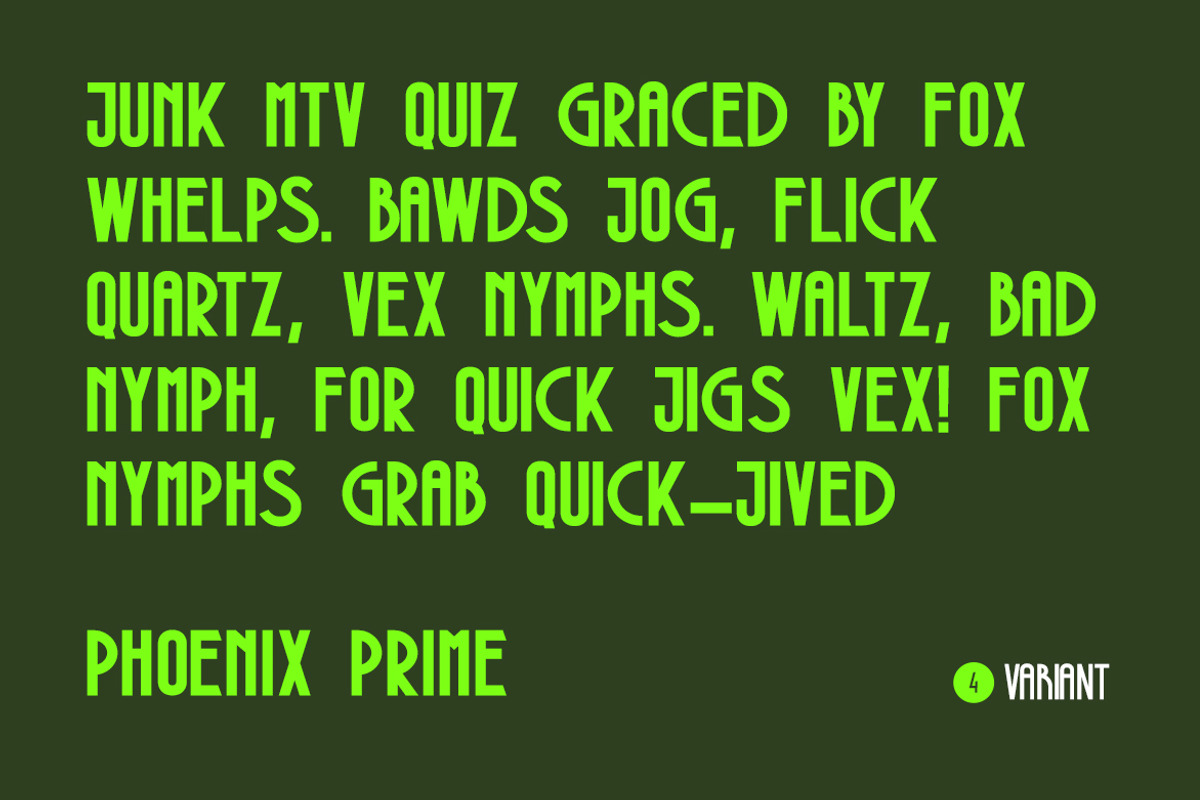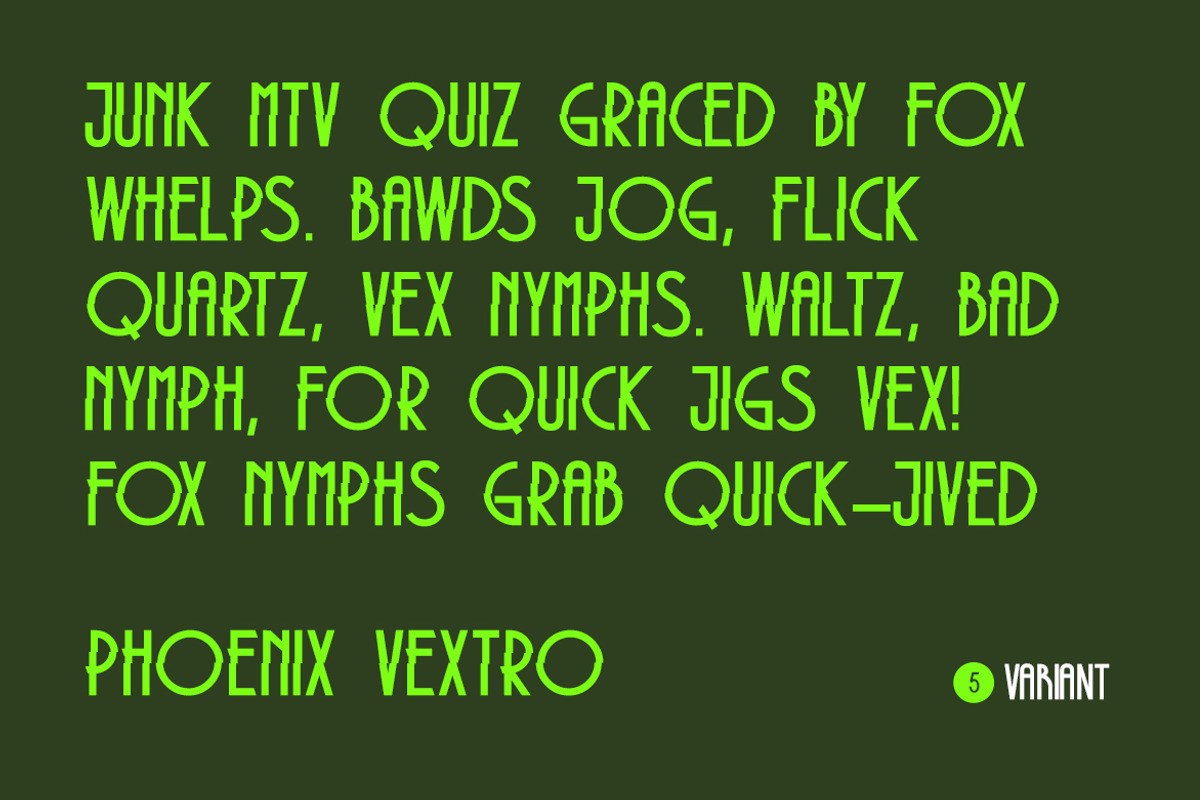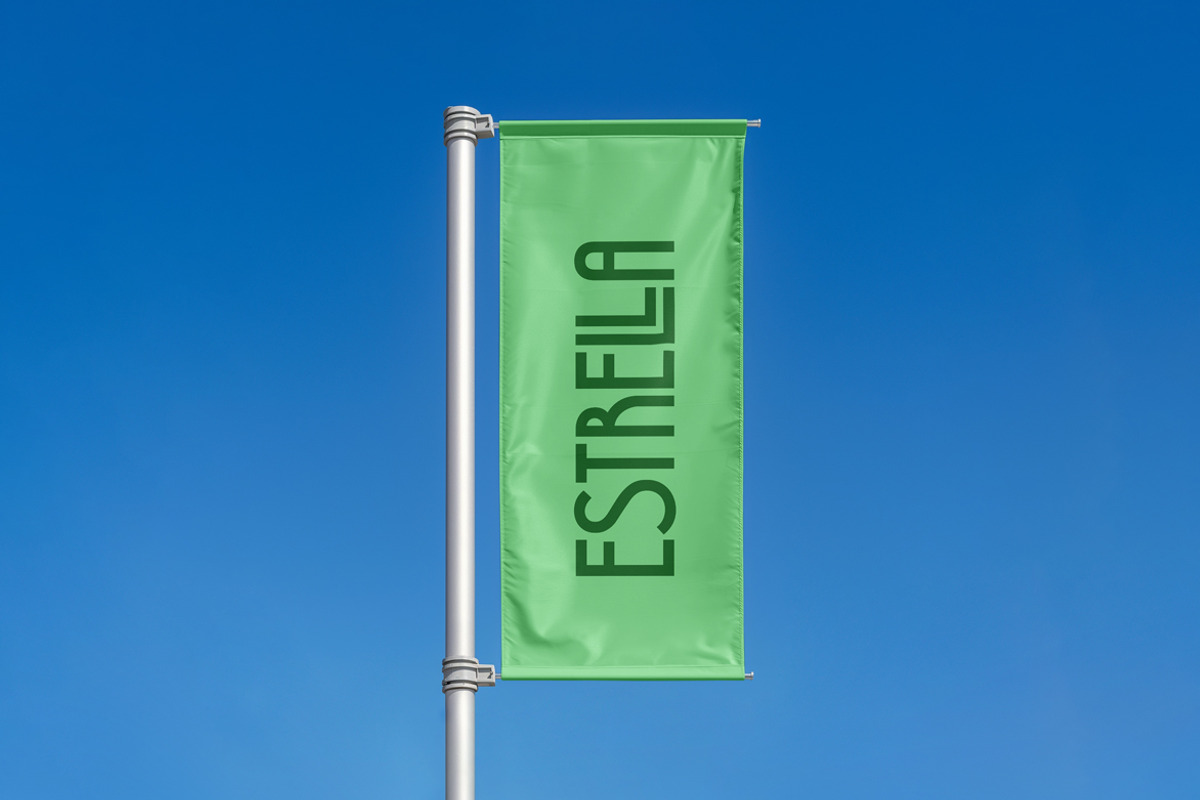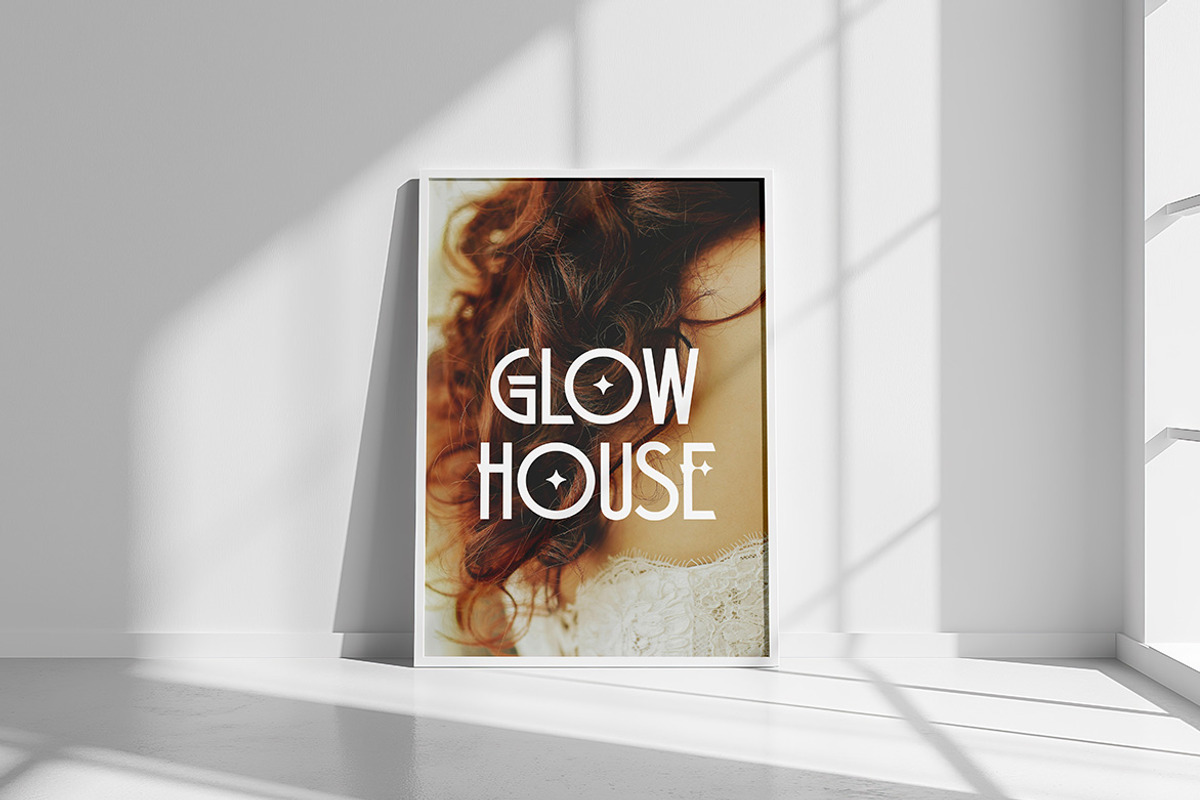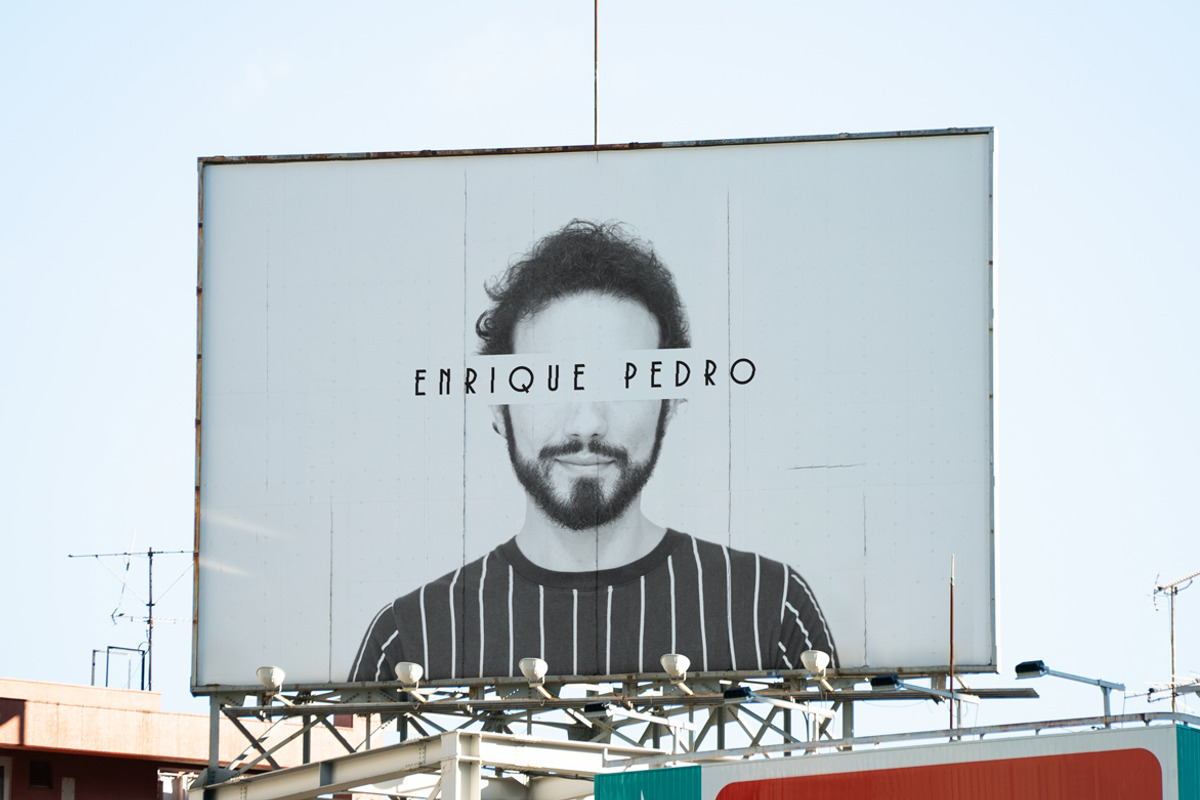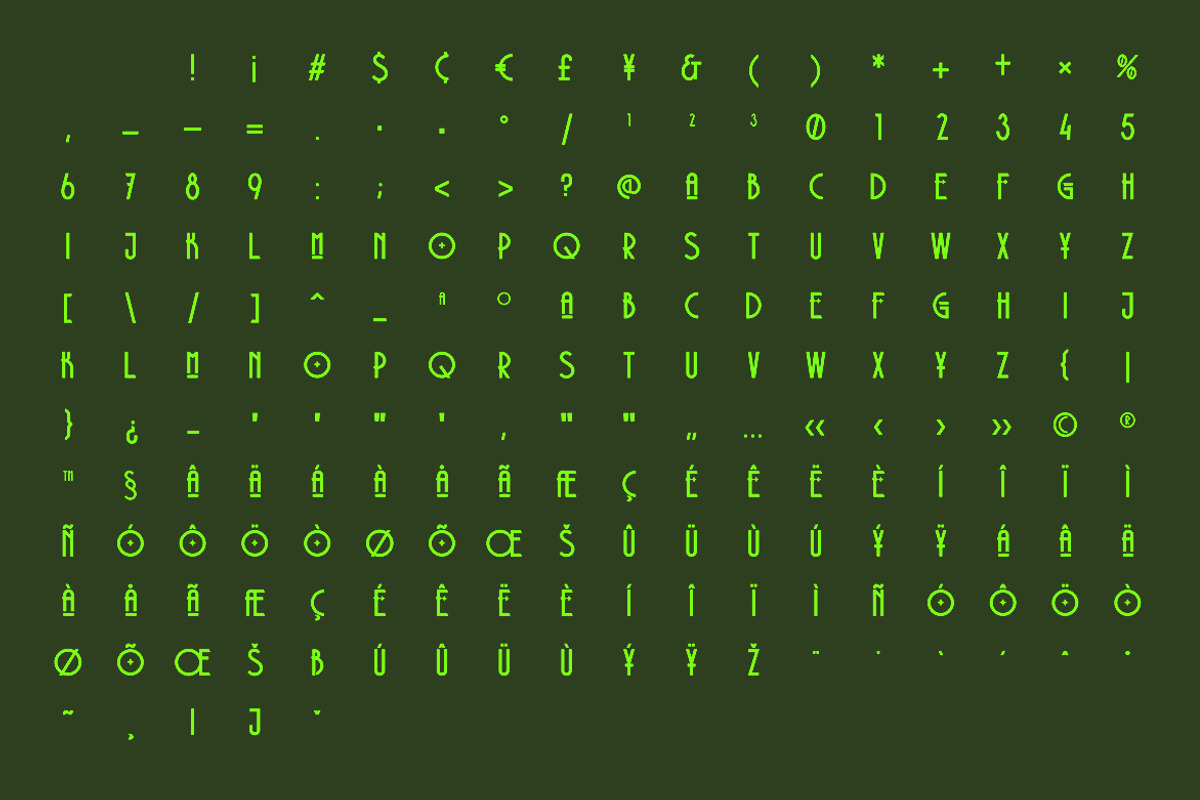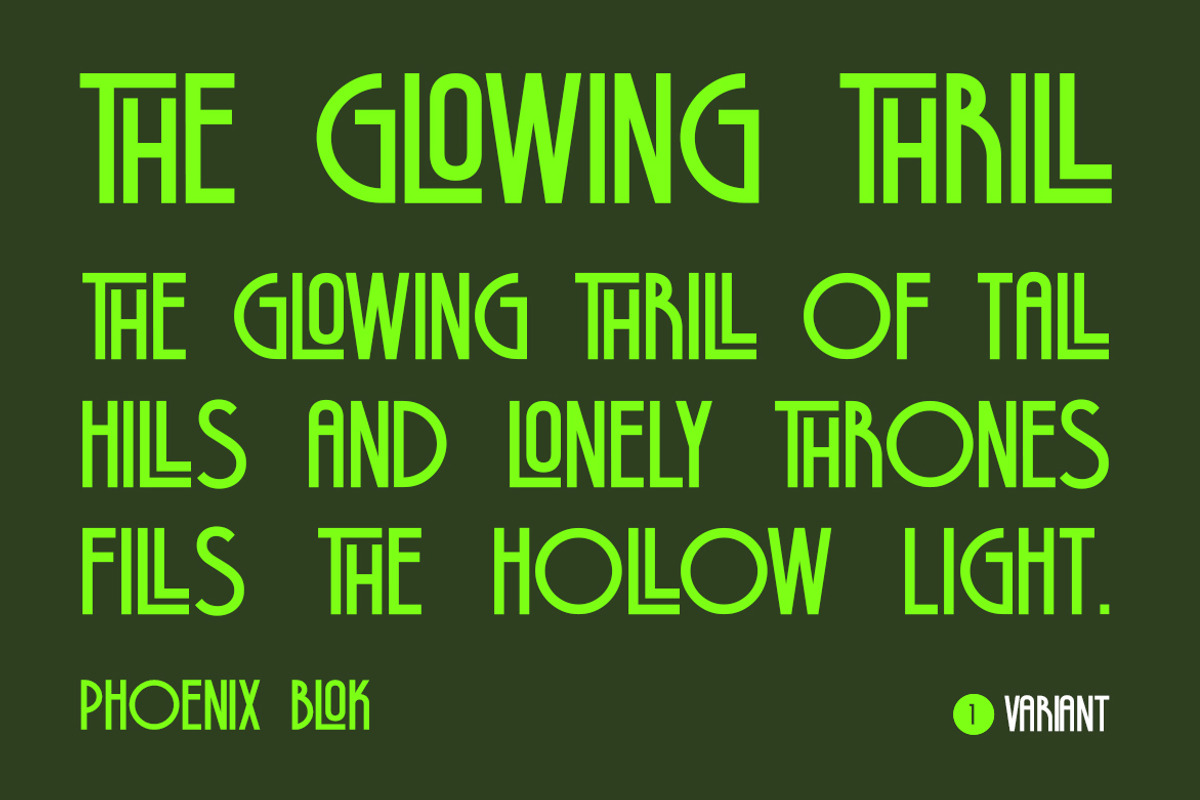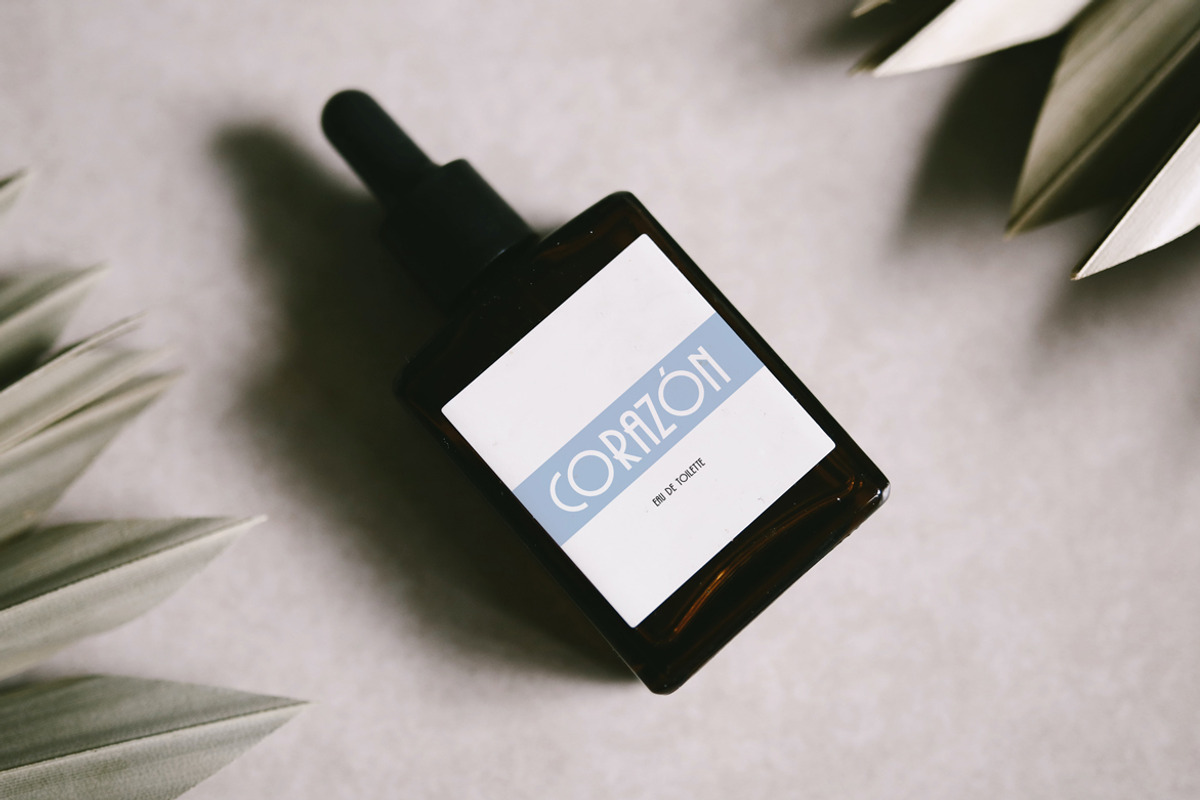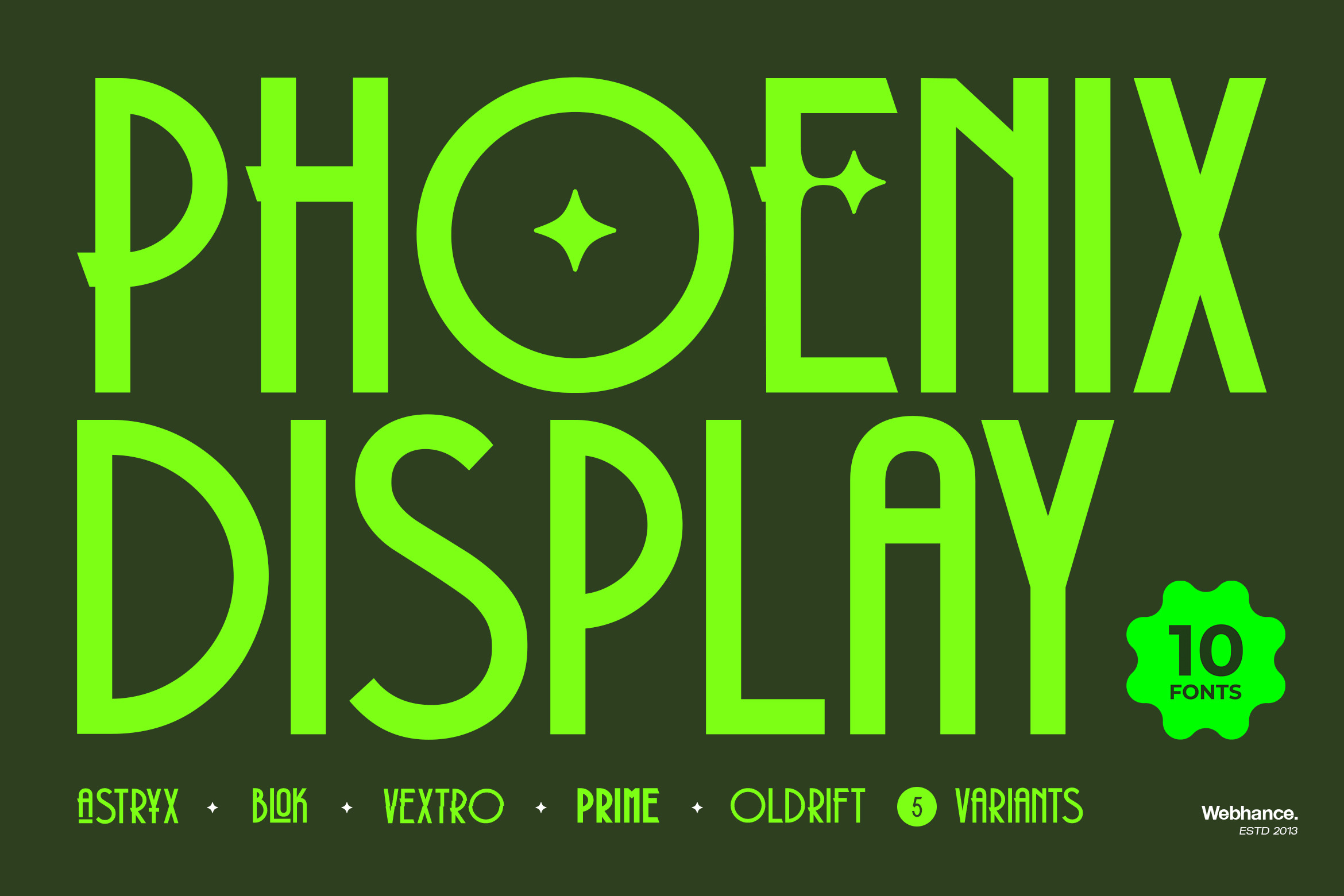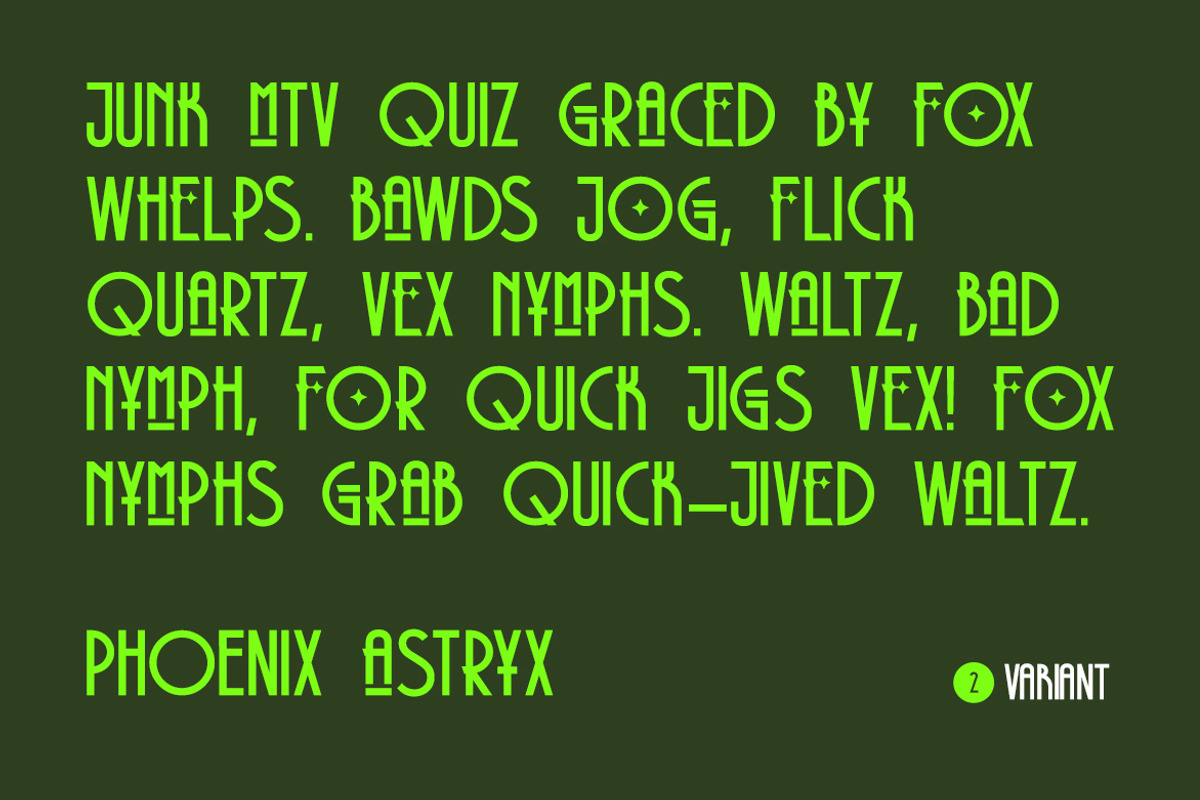
Phoenix Display Font
Phoenix Display Font – Evergreen Typeface
Phoenix Display Font Display is your ultimate choice when boldness and futuristic flair are essential. Designed with cosmic inspiration and modern geometry, Phoenix Display Font Display blends clean cuts, perfect circles, and stellar details to create a mesmerizing visual style. Whether you need sleek minimalism or rugged vintage charm, this font family offers five exciting variants — Astryx, Blok, Vextro, Prime, and Oldrift — ensuring every design project has its perfect match.
With 10 fonts and 5 stylistic variants, Phoenix Display Font Display brings structure, creativity, and an unstoppable energy to your projects. Its versatility shines in branding, editorials, sci-fi posters, gaming titles, luxury packaging, and social media graphics. Each variant has been crafted to maintain visual consistency while offering a fresh voice, making it an indispensable tool for designers seeking impact and innovation.
Beyond just aesthetics, Phoenix Display Font Display was engineered for functionality and adaptability. Whether you’re creating standout headlines or immersive visual experiences, this typeface family ensures your message bursts through with cosmic brilliance. Experience how geometry, creativity, and boldness collide in one breathtaking package designed for the future.
- Uppercase letters
- Punctuations